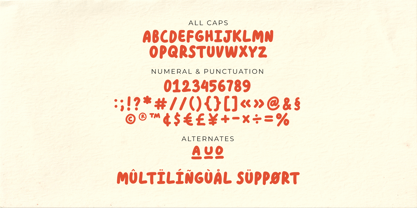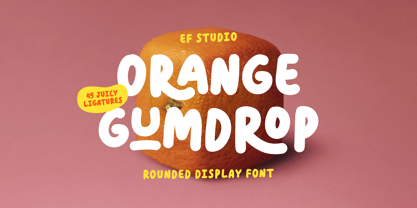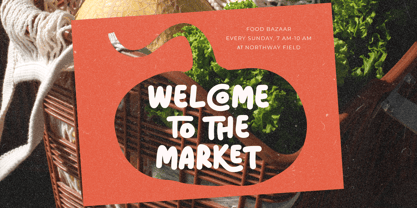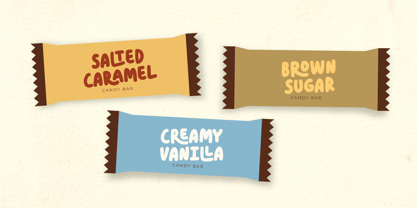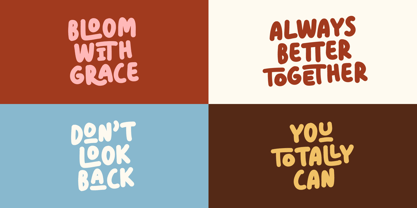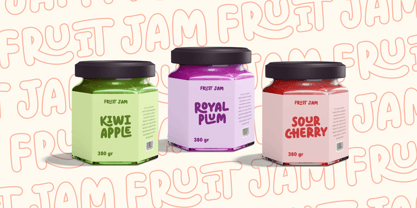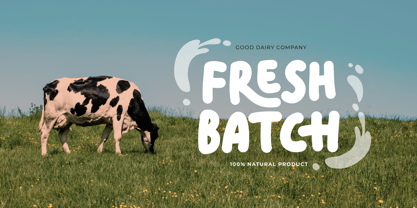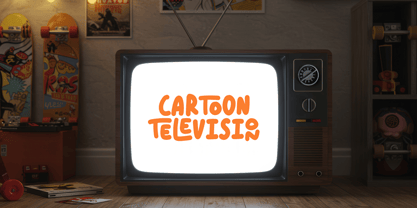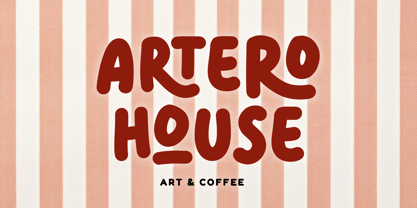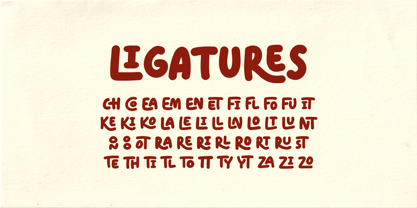
Orange Gumdrop
Die Schriftfamilie Orange Gumdrop wurde von Luthfi Fauzi entworfen und von Ef Studio veröffentlicht. Orange Gumdrop enthält 1 Stile. Mehr über diese Familie
Orange Gumdrop is a playful display font defined by soft curves, rounded terminals, and intentionally uneven details. Its shapes feel warm and expressive, with a hand-touched quality that brings a sense of ease and familiarity. Every letter is built to feel friendly, bold, and approachable, making the font naturally eye-catching while staying comfortable to read at larger sizes. It works especially well for food, lifestyle, and playful branding, but remains flexible enough for posters, packaging, editorial highlights, and social media visuals. The tone is casual yet intentional, adding personality without overwhelming the message. This font is meant to feel human, cheerful, and confident. Perfect for projects that want to feel inviting, expressive, and a little bit fun. Features • Uppercase & Lowercase characters • Numerals & basic punctuation • Standard ligatures & alternates • OpenType features enabled • Multilingual support (basic Latin languages)